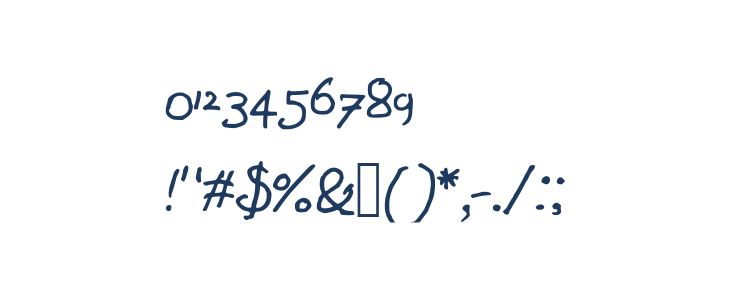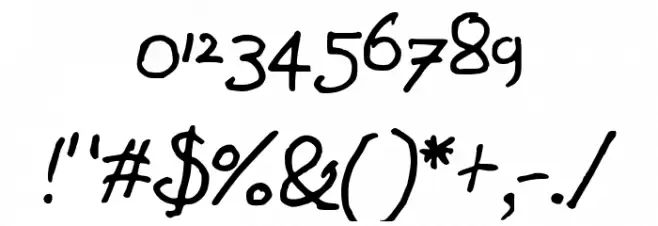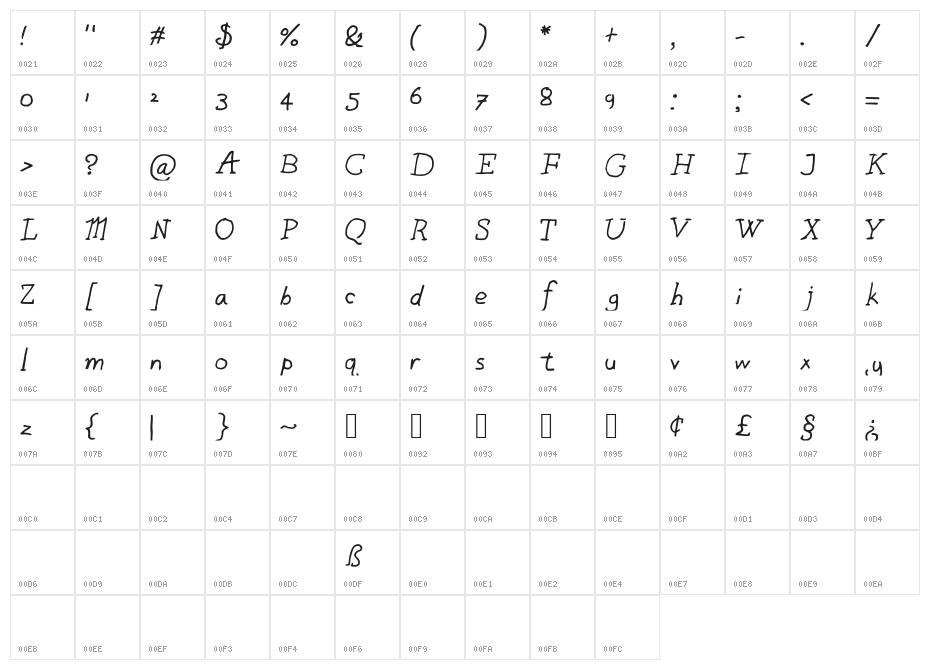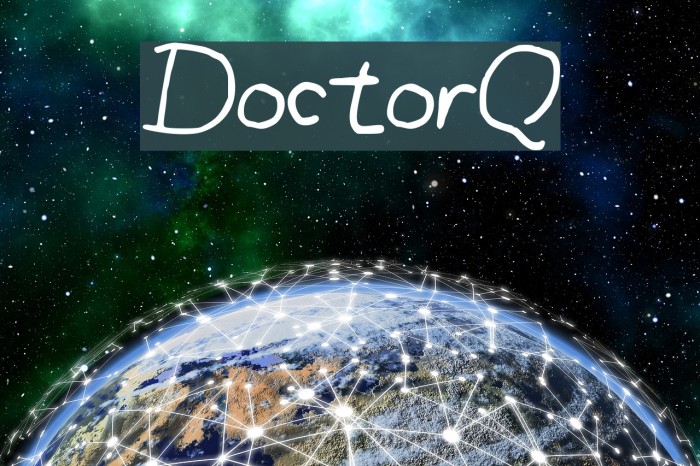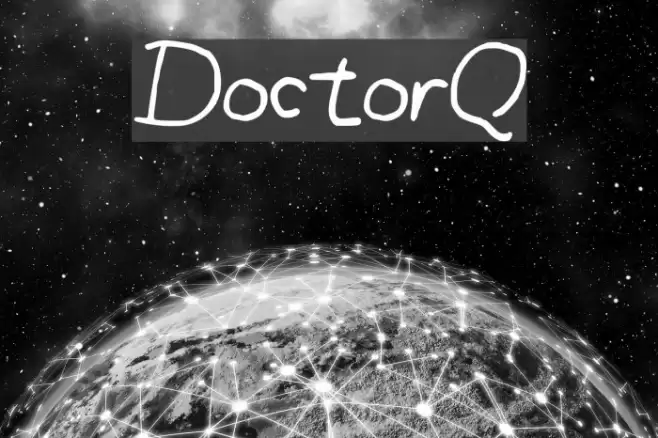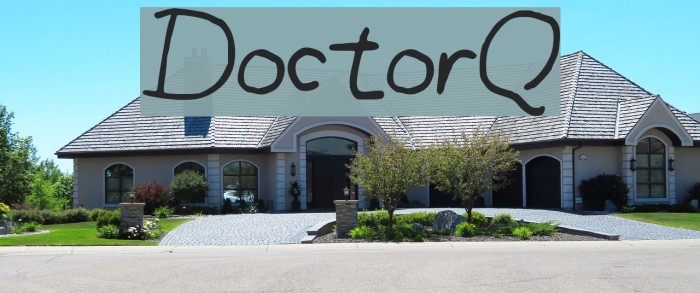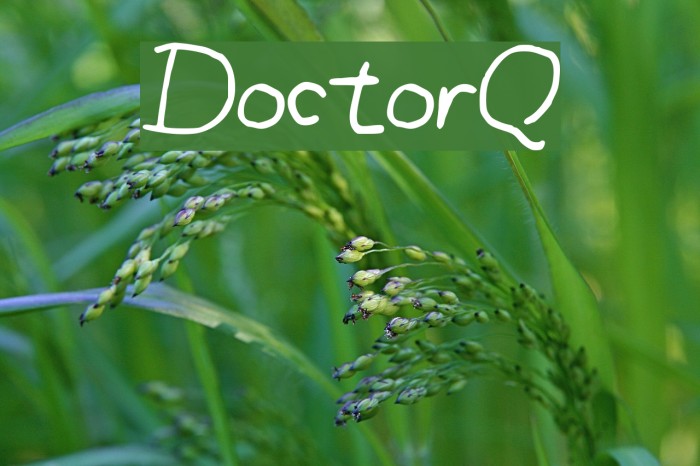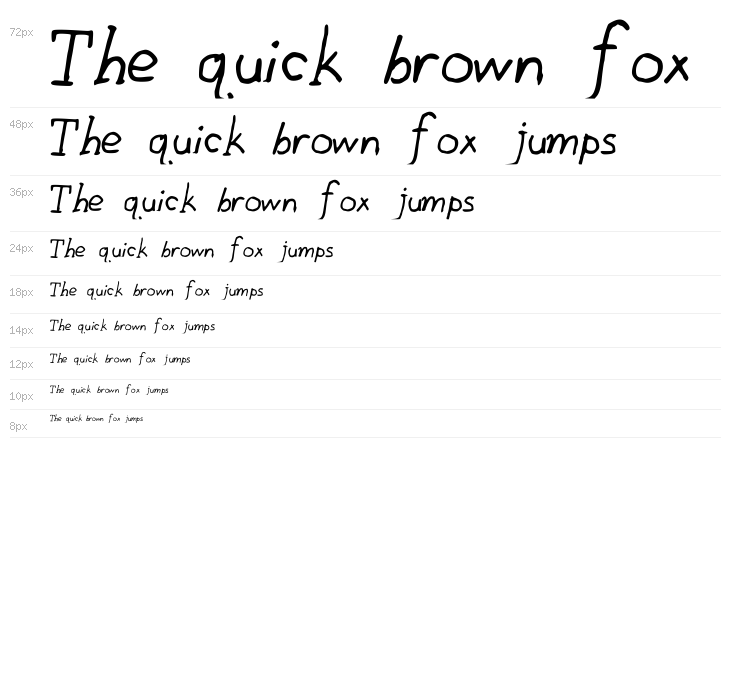
Doctor_Q Font
Doctor_Q Description
This font exhibits a playful and informal handwritten style, characterized by its irregular strokes and slightly tilted letters. The uppercase letters are bold and prominent, while the lowercase letters maintain a consistent flow, adding to the casual aesthetic. Numbers and special characters follow the same informal style, making the font versatile for creative projects. The overall appearance is friendly and approachable, suitable for designs that require a personal touch.